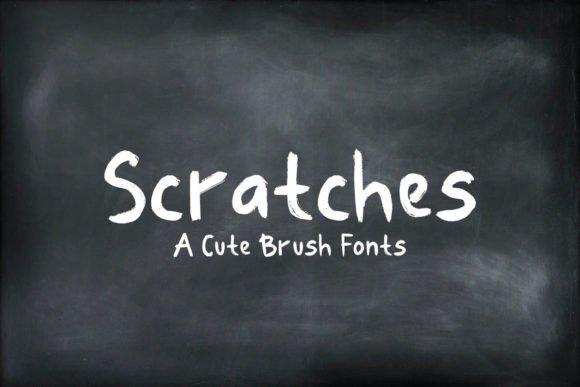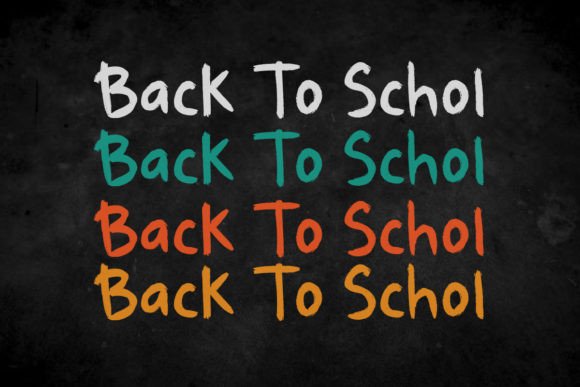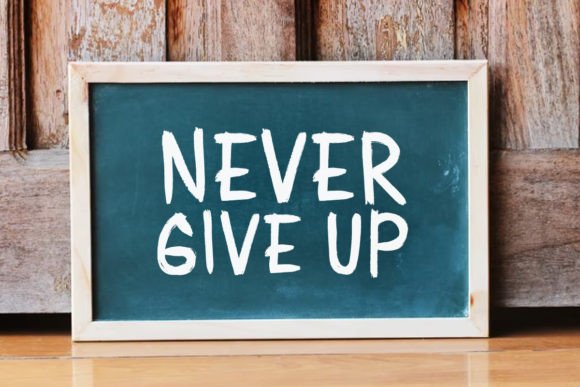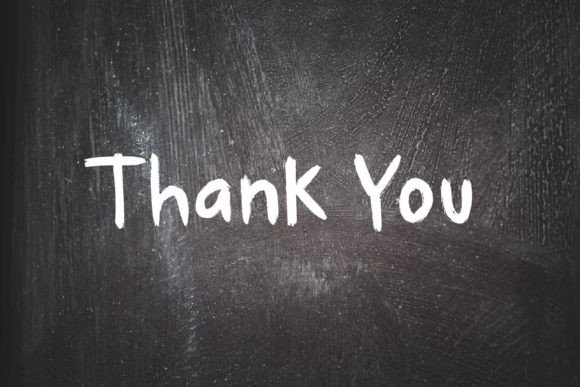
Scratches Font
About Scratches Font
Scratches is a charming brush font that exudes a cute and playful vibe, enhanced by its intriguing grungy feel. The scratched glyphs give this font a distinctive and signature look, making it an ideal choice for any design project that requires a brush-stroked touch.
The cuteness of Scratches is immediately apparent, making it a delightful option for projects where a playful and informal aesthetic is desired. The brush strokes add a dynamic and handmade quality, injecting character and personality into your designs.
The grungy feel of Scratches brings an interesting texture to the font, making it stand out with its unique and artistic appearance. This quality makes it well-suited for projects that aim to convey a sense of creativity, individuality, or a touch of urban and edgy style.
Whether you’re working on posters, social media graphics, branding, or any other design project, Scratches adapts seamlessly, giving your creations that extra brush-stroked flair. Its versatility and distinctive look make it a valuable asset for designers who want to add a playful and artistic touch to their work.
In summary, Scratches is more than just a font; it’s a design tool that brings a cute and grungy charm to your projects. Whether you’re aiming for a lighthearted and fun aesthetic or a more edgy and urban style, Scratches stands ready to be the brush font that infuses your designs with character and creativity.